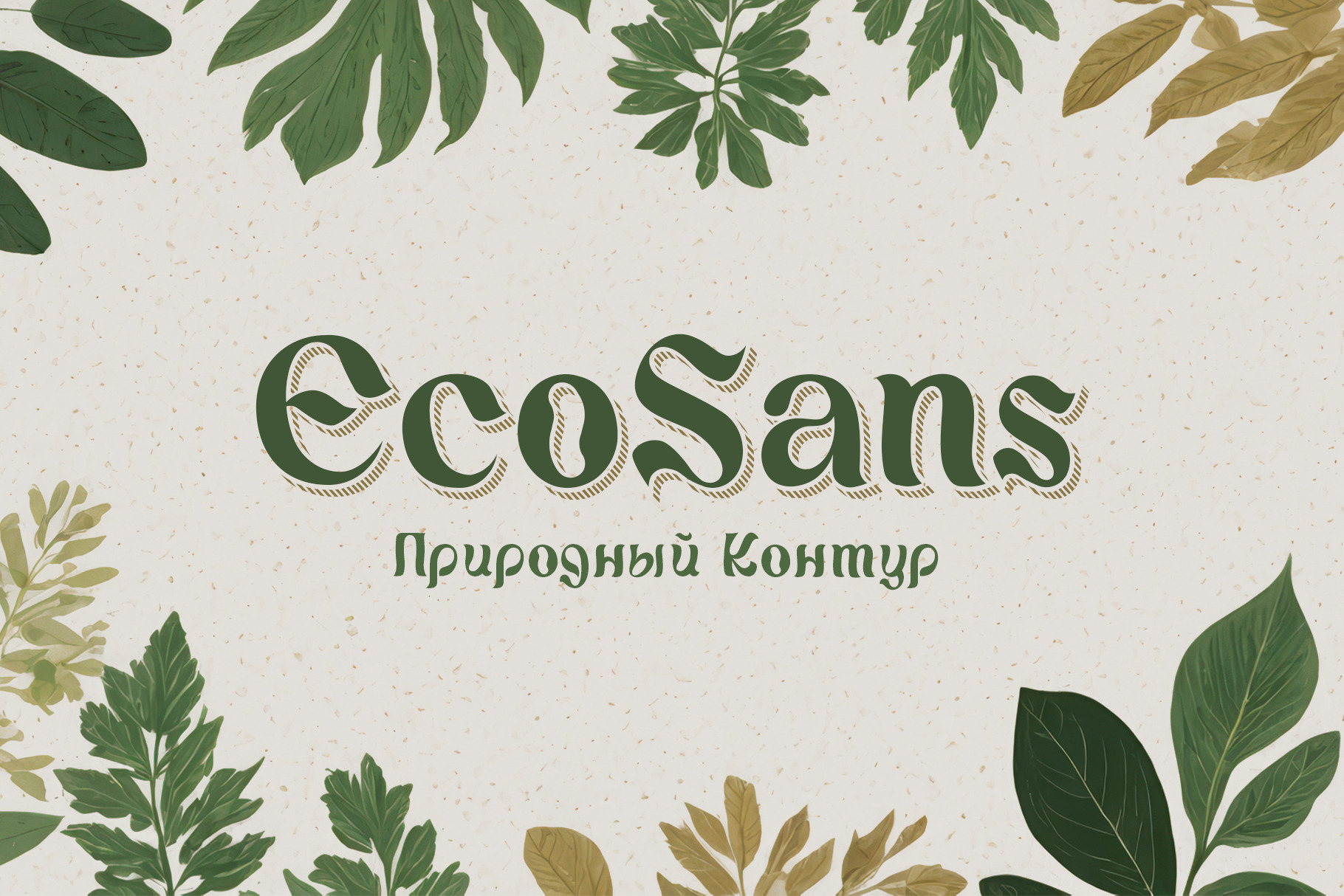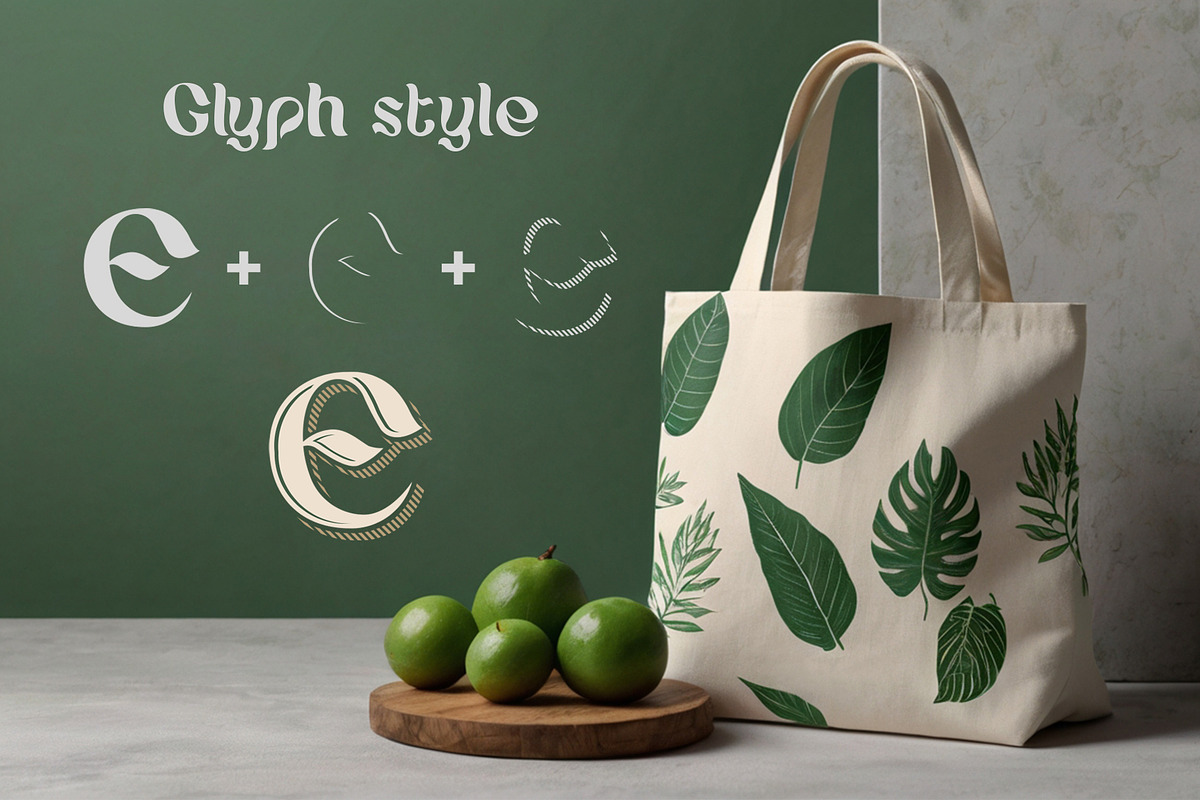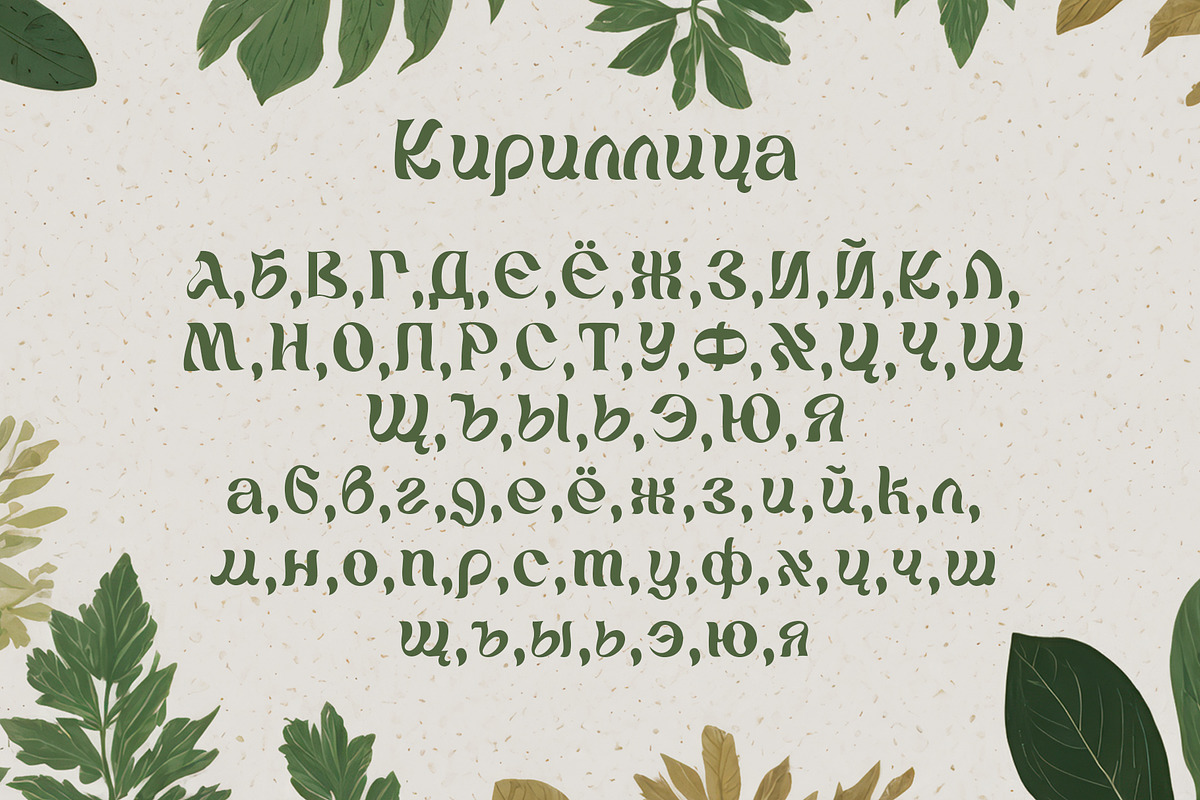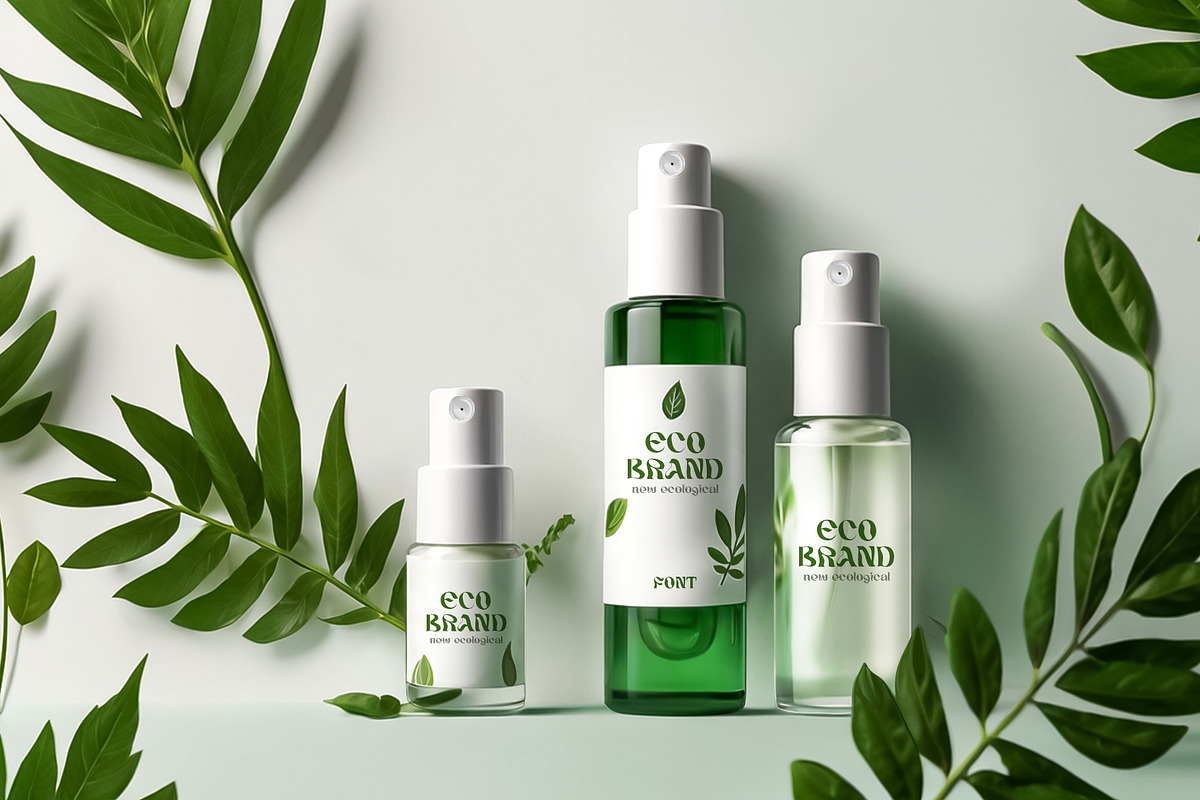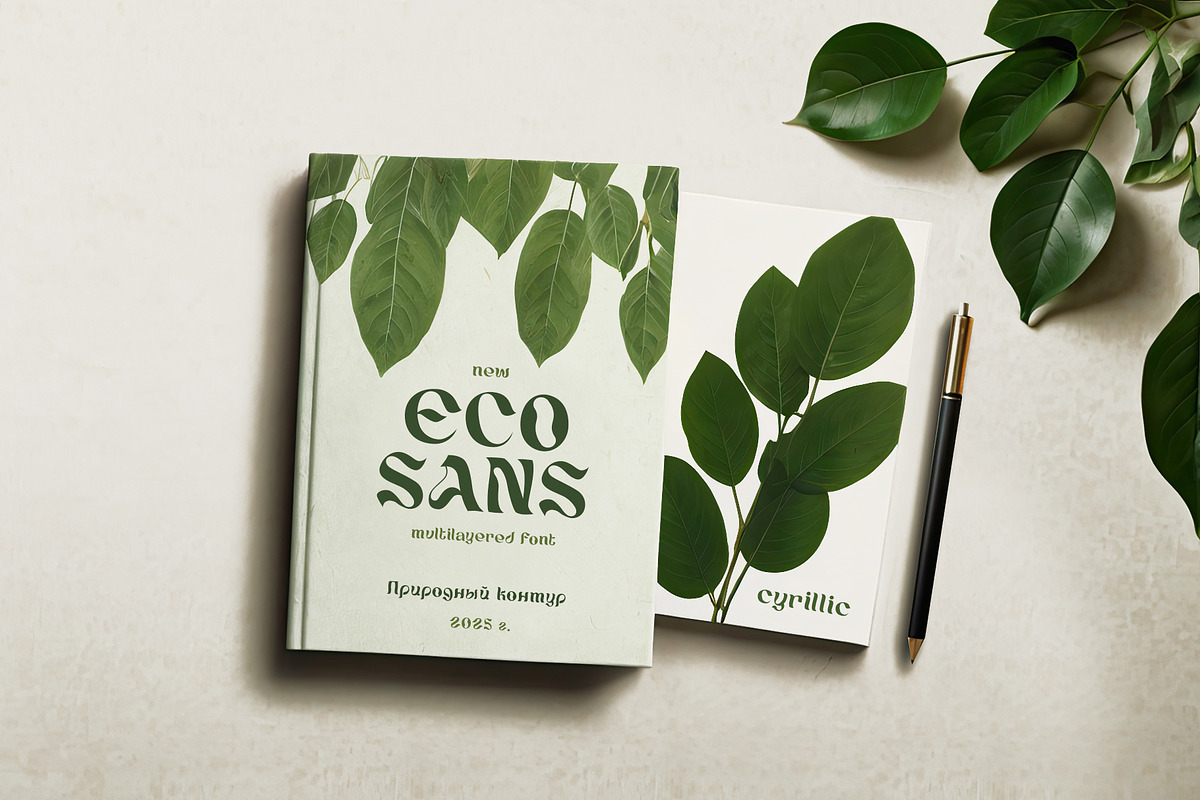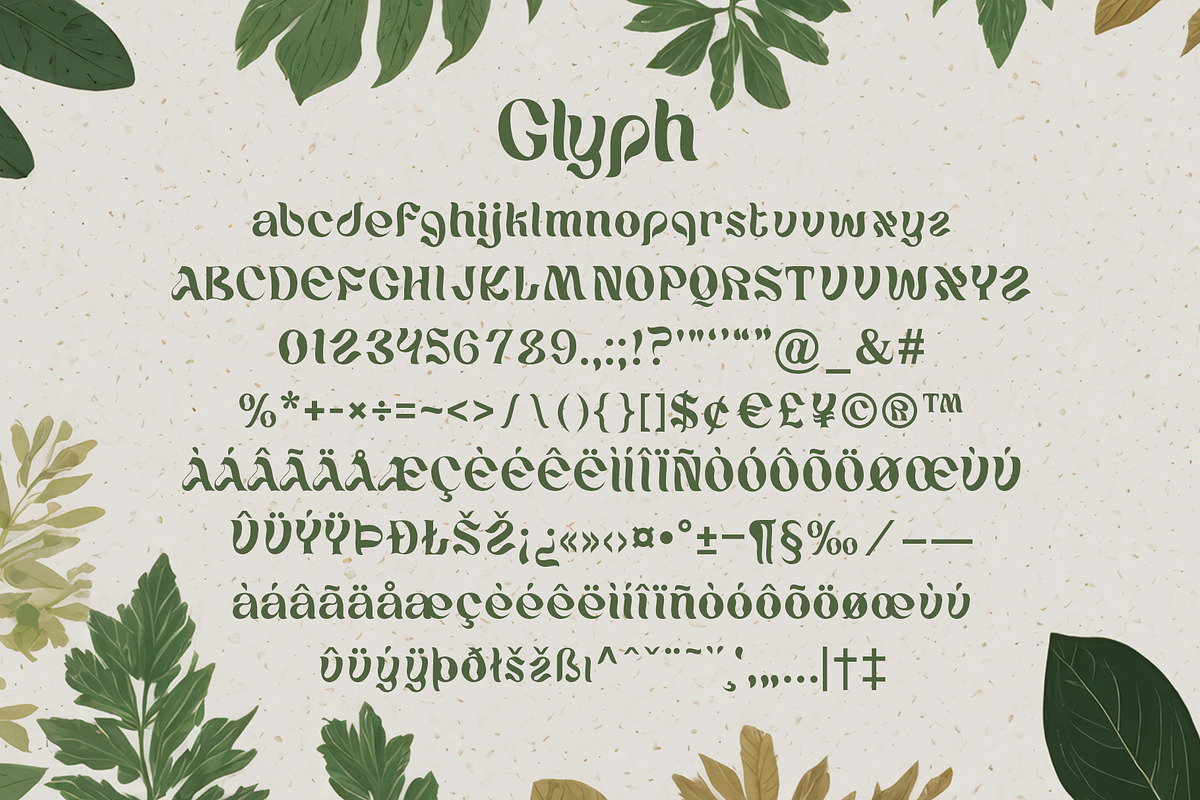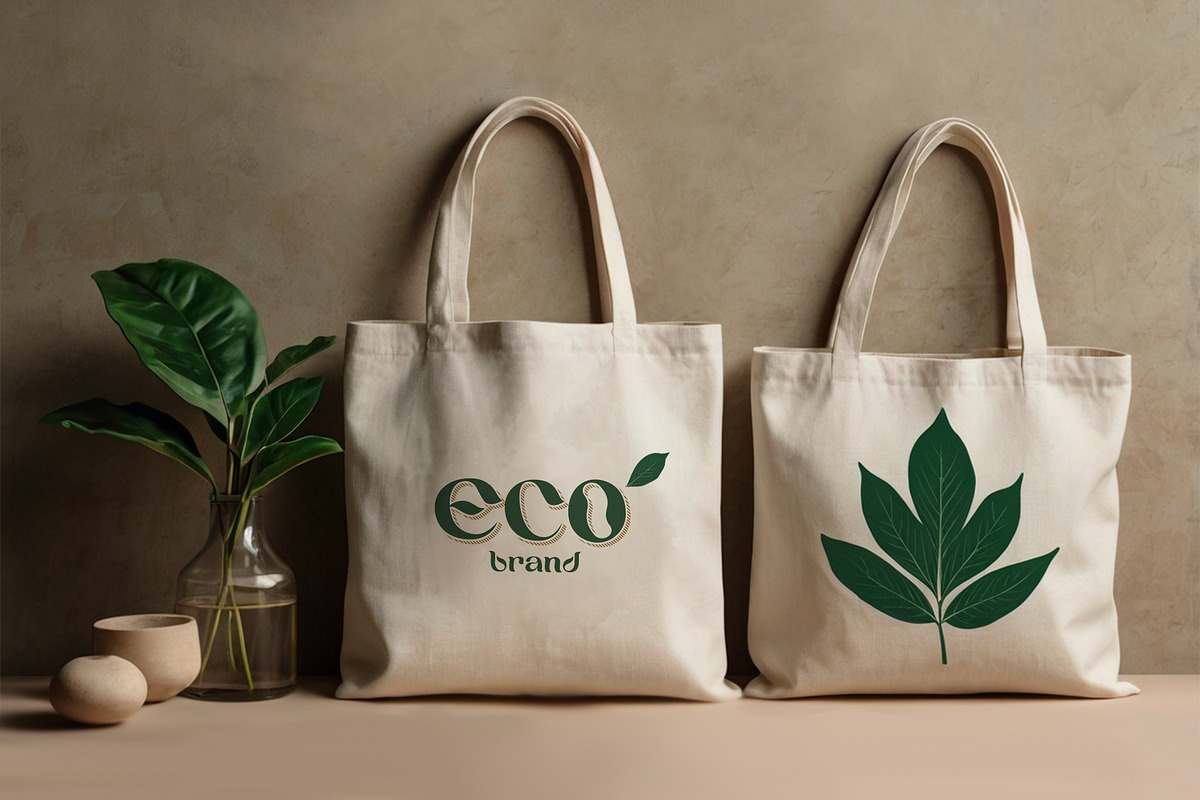
EcoSans — Minimalist Nature Font
A clean, eco-inspired sans-serif typeface for modern sustainable branding.
Features: Nature-Inspired Design: Soft geometric shapes with subtle rounded corners, mimicking organic forms. Multilingual Support: Comprehensive Latin and Cyrillic characters, including accents (Ä, Ö, Ü, Č, Š, Ñ, Ё, Й, etc.). Leaf Motifs. It contains 4 writing styles: Basic, Inner shadow, Shaded outer shadow, and General style. Optimized Readability: Perfect for both digital interfaces (websites, apps) and print materials.
Perfect For: Eco-friendly branding (packaging, logos, labels). Wellness blogs, organic product websites. Sustainable fashion, cosmetics, food industries.
Why Choose Eco Sans? Eco Sans combines minimalist aesthetics with a touch of nature, making it a go-to font for brands that value sustainability and modernity. Its clean lines and functional design ensure clarity across all media.